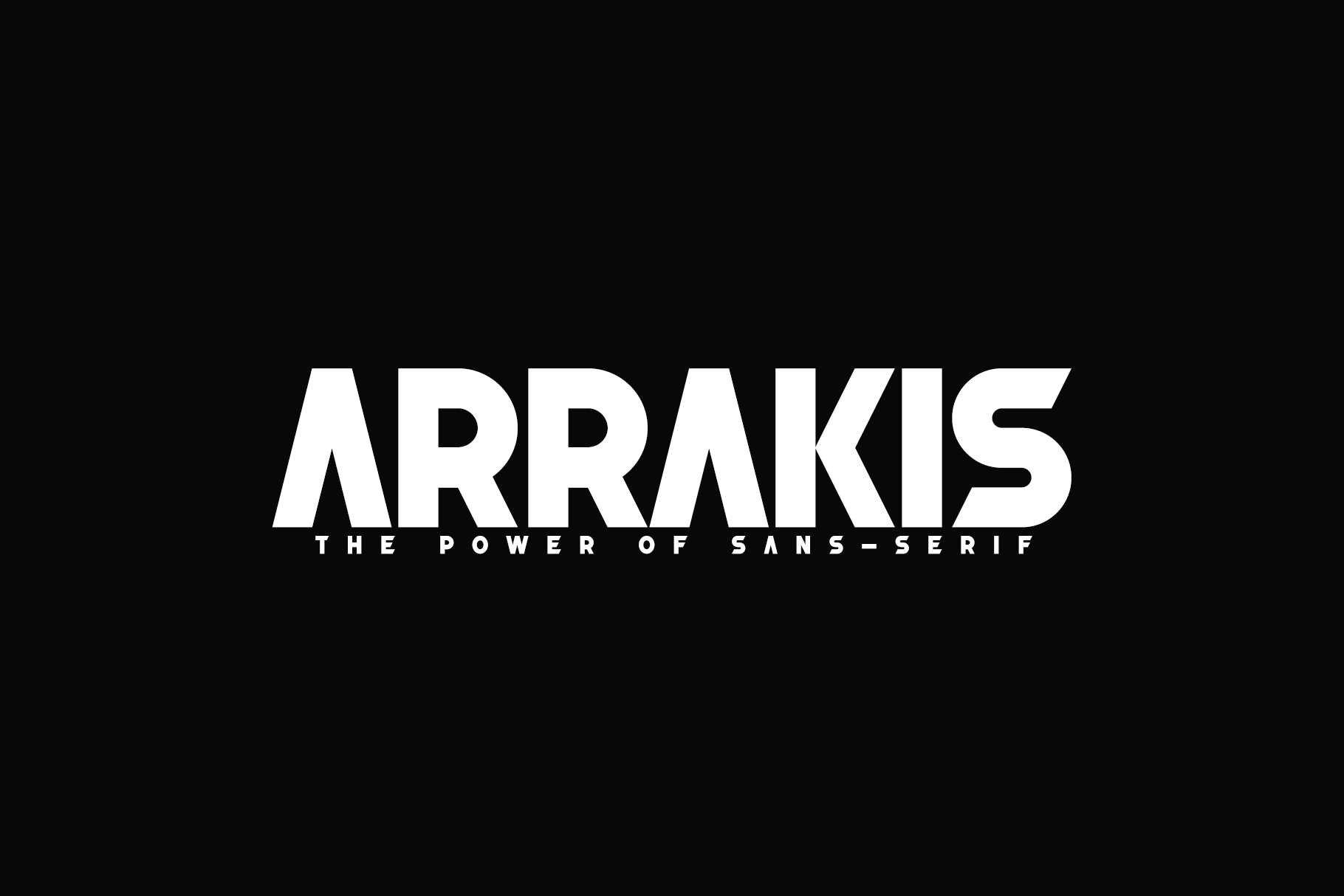
Arrakis The Power of Sans Font
Arrakis is a strong font family and sophisticated sans serif. Inspired by the sport, its sturdy uncompromising style is felt through the controlled letterforms and modern touches. A balance of hard lines and smooth curves. Each font in the family can stand on its own, dynamic, and authoritative in its own right.
Arrakis works great in any branding, logos, magazines, films, sports titles, news, jersey, music, events. The different weights give you a full range to explore a whole host of applications, while the outlined fonts give a real modern feel to any project.